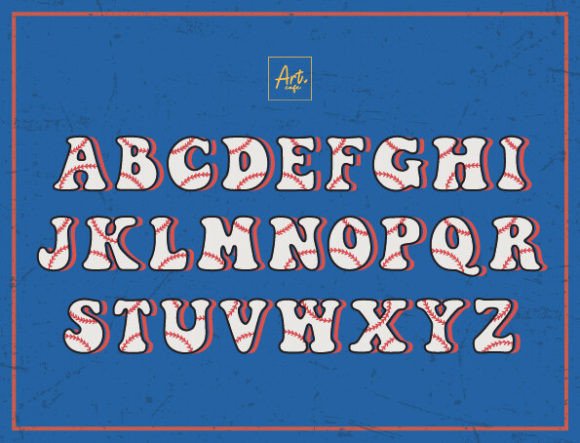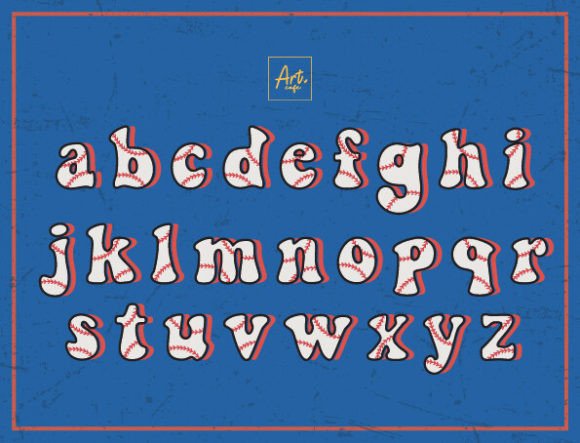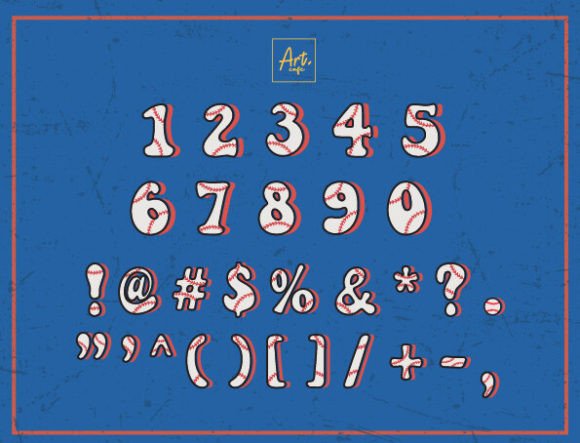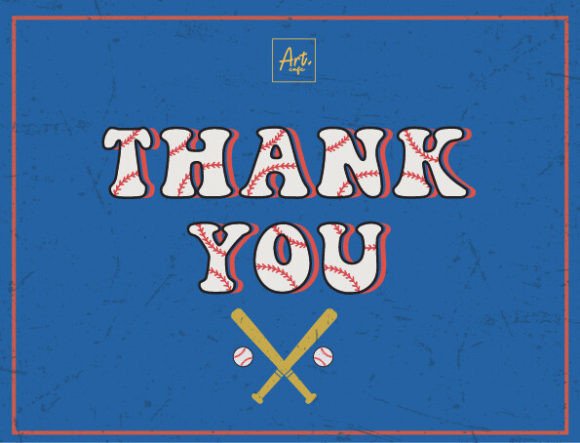
Introduction to Groovy Baseball Font
Step back in time with the Groovy Baseball color font, a vibrant blend of retro aesthetics and playful bravado.
Perfectly tuned for the sports world, this font embodies the spirit of Game Day and takes center stage on any poster or headline Be bold and make a statement, all while evoking a sense of nostalgia with this ingeniously designed typeface.
Key Features of Groovy Baseball Font